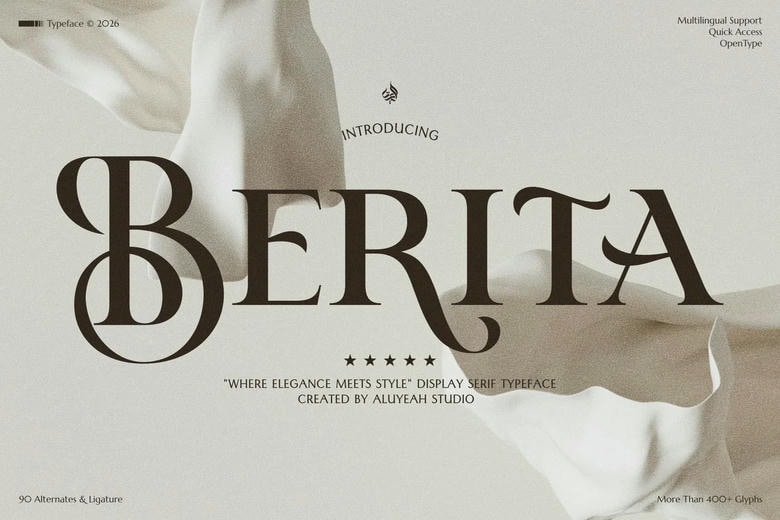
Berita Font
Berita Font, where style and grace collide display font, which will provide the glamour touch to any design. Its smooth lines and exquisite details. It is a branding project or even a wedding invitation, Berita fits all design projects with ease.
Berita Serif Font